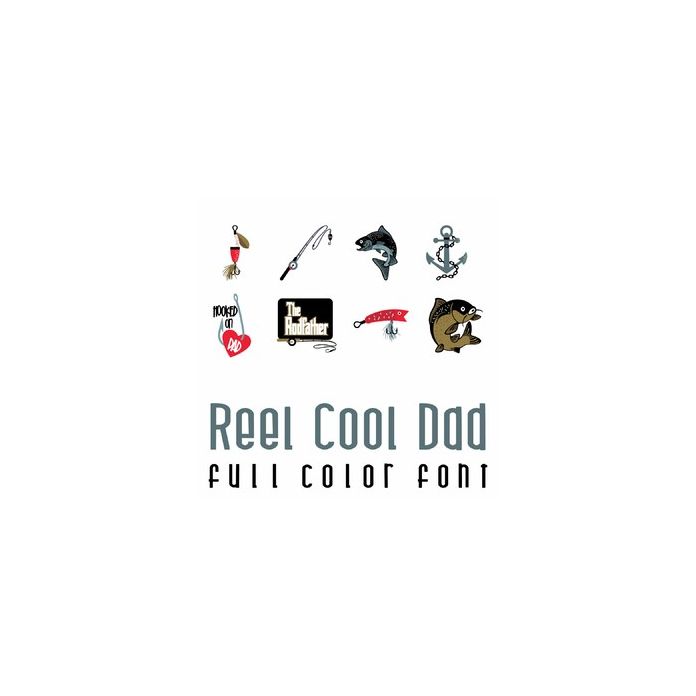
This fun full color doodlebat font features 26 fishing items perfect for the Fisherman in your life. Use it to create cards, crafts, gifts, decor, scrap book pages, planner stickers and more!